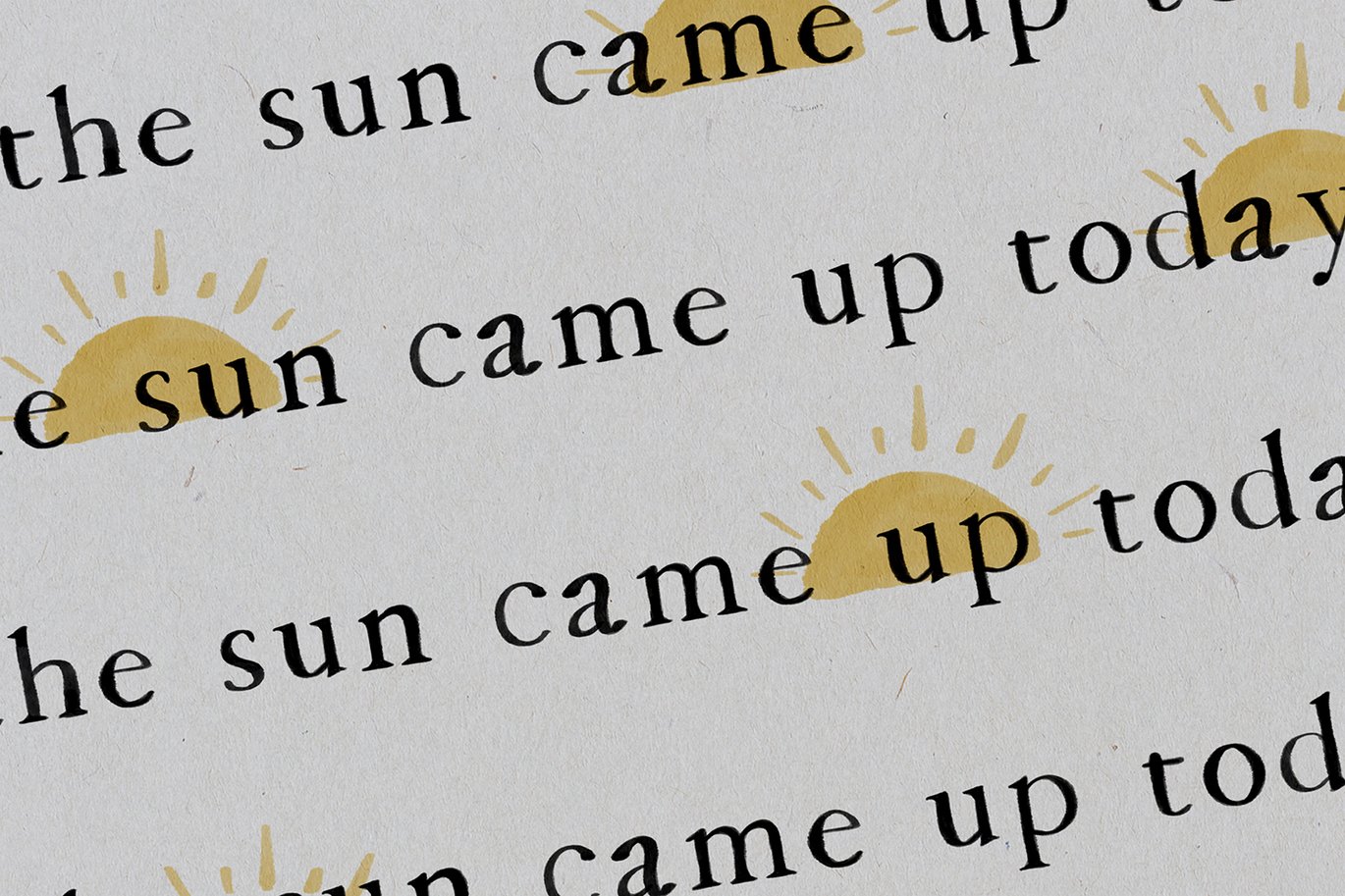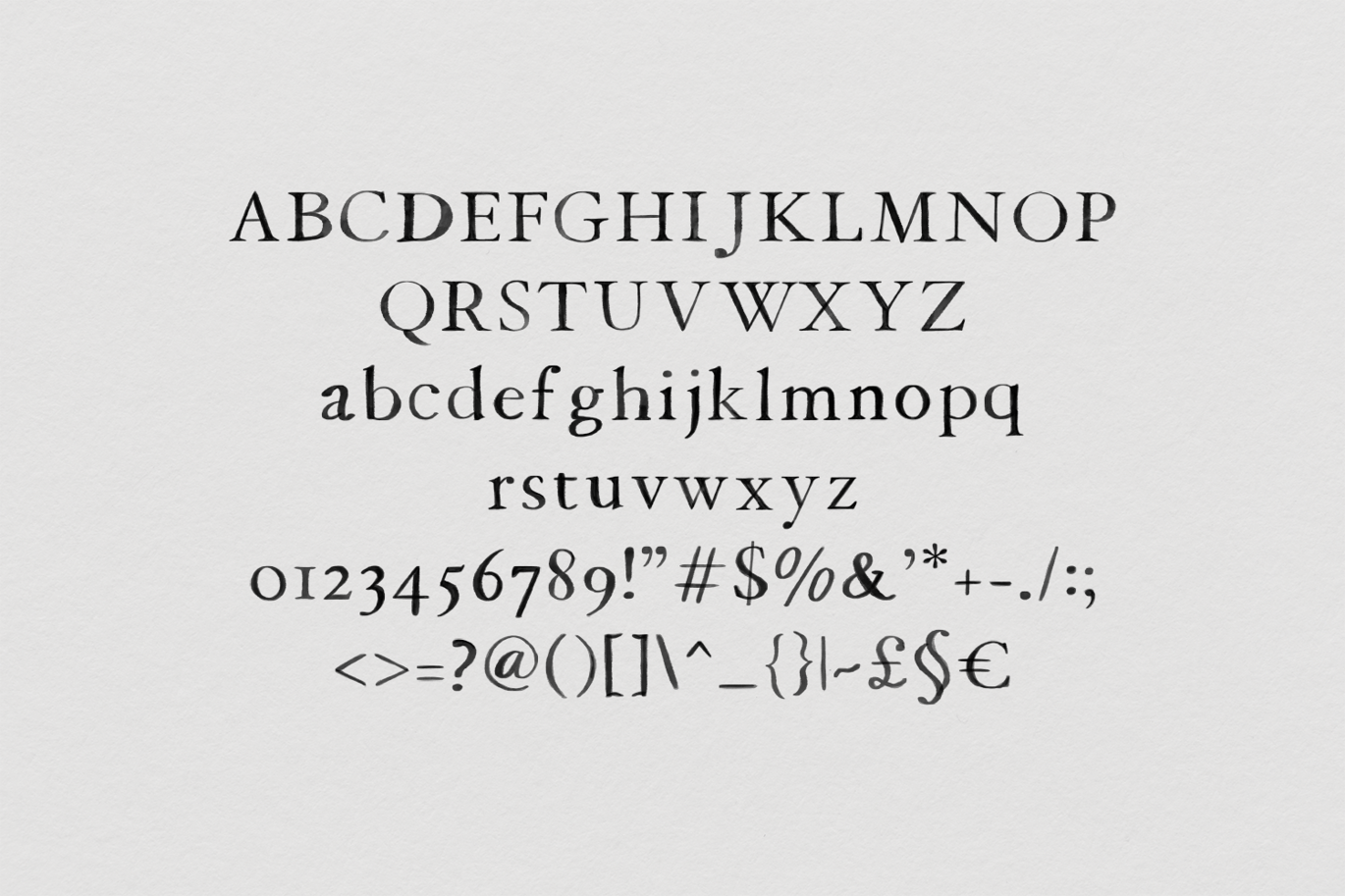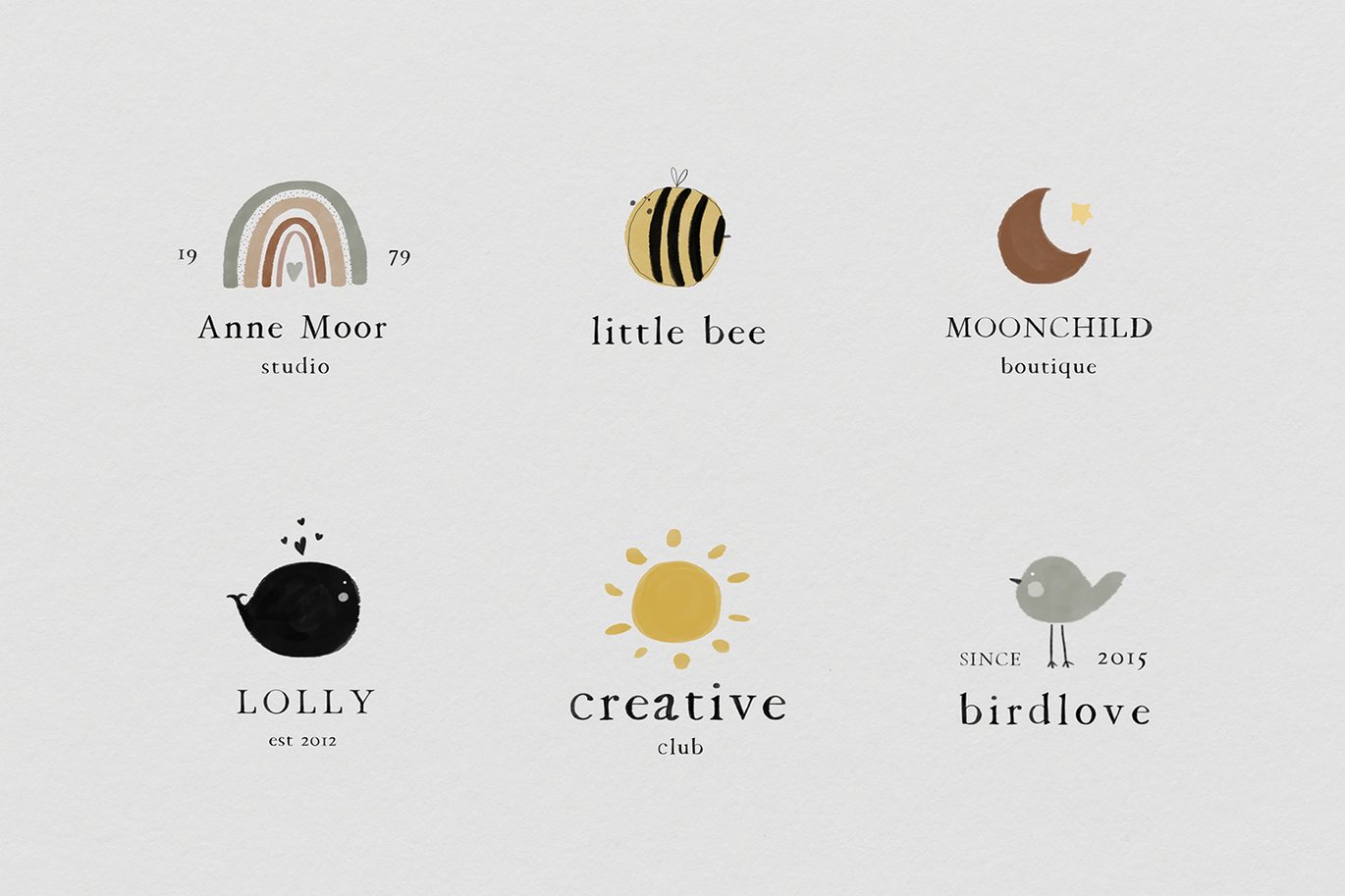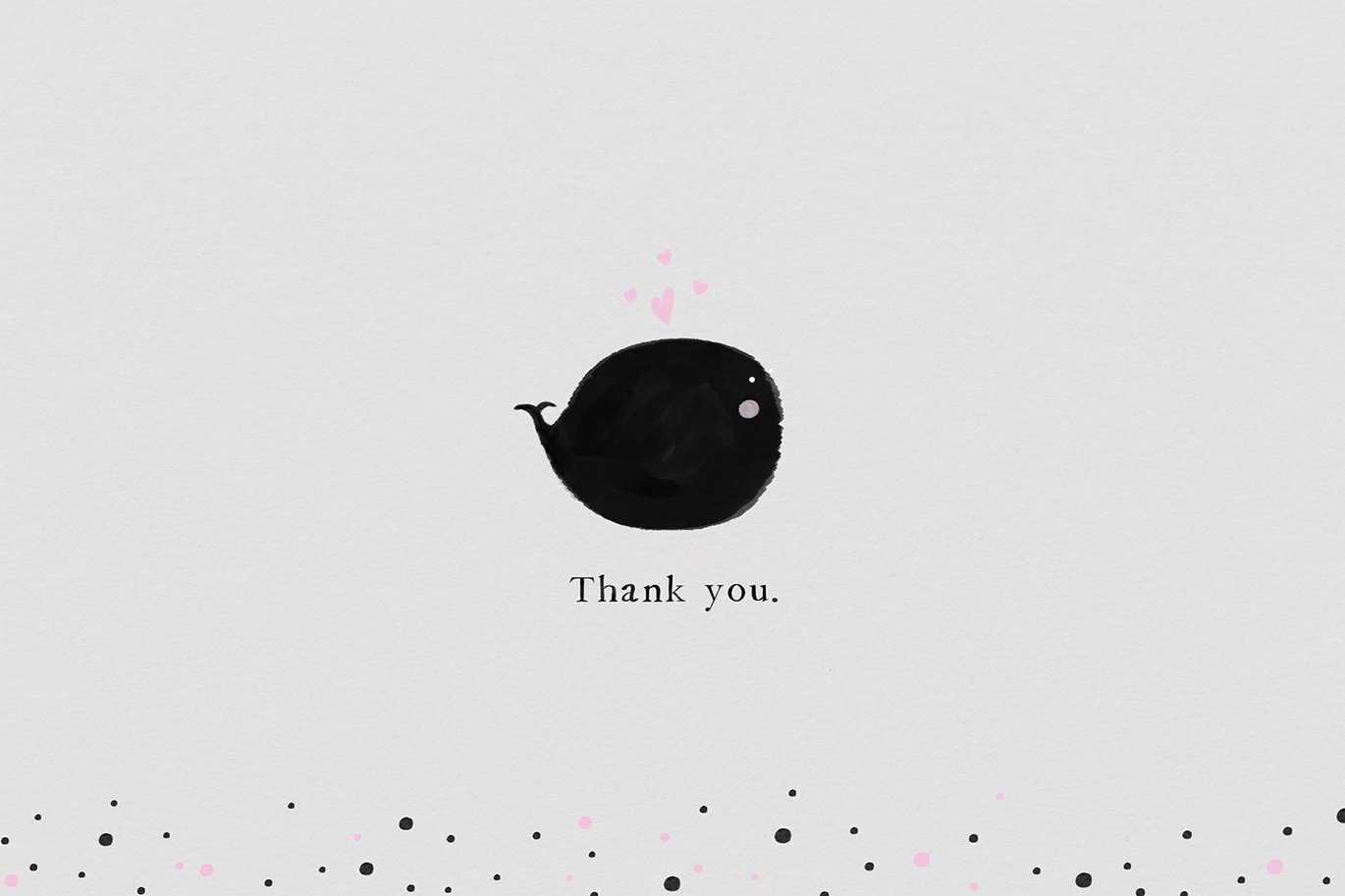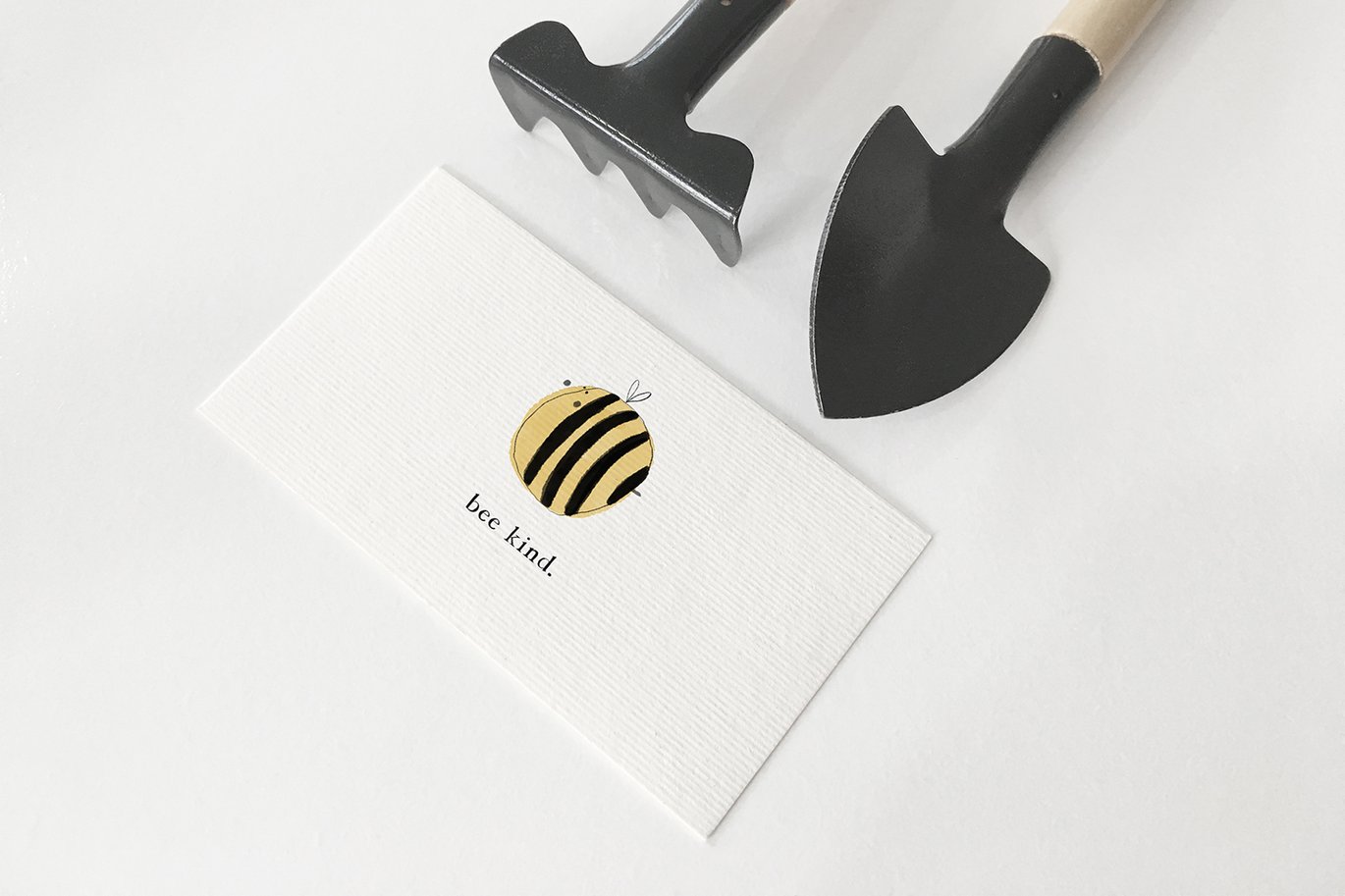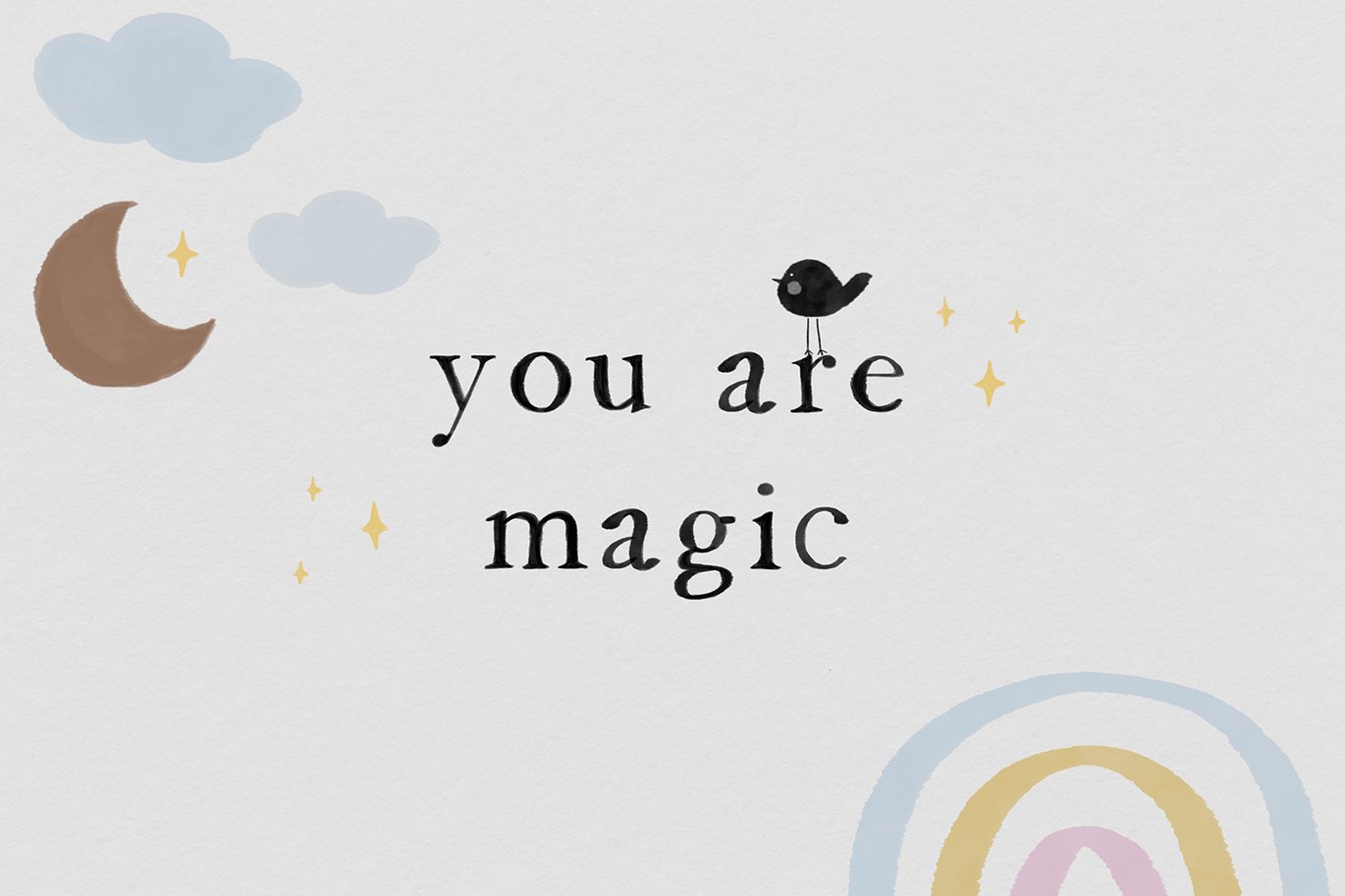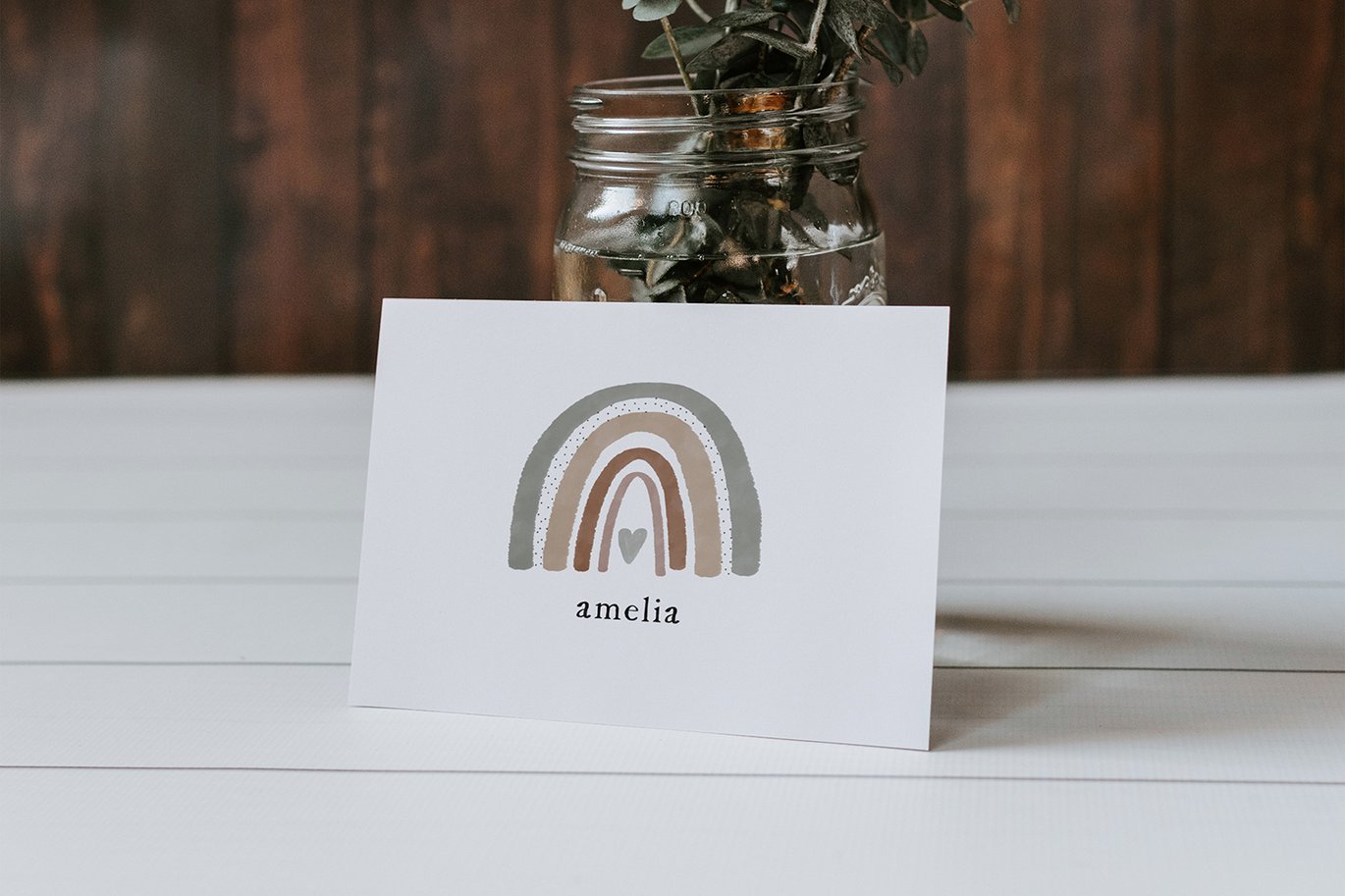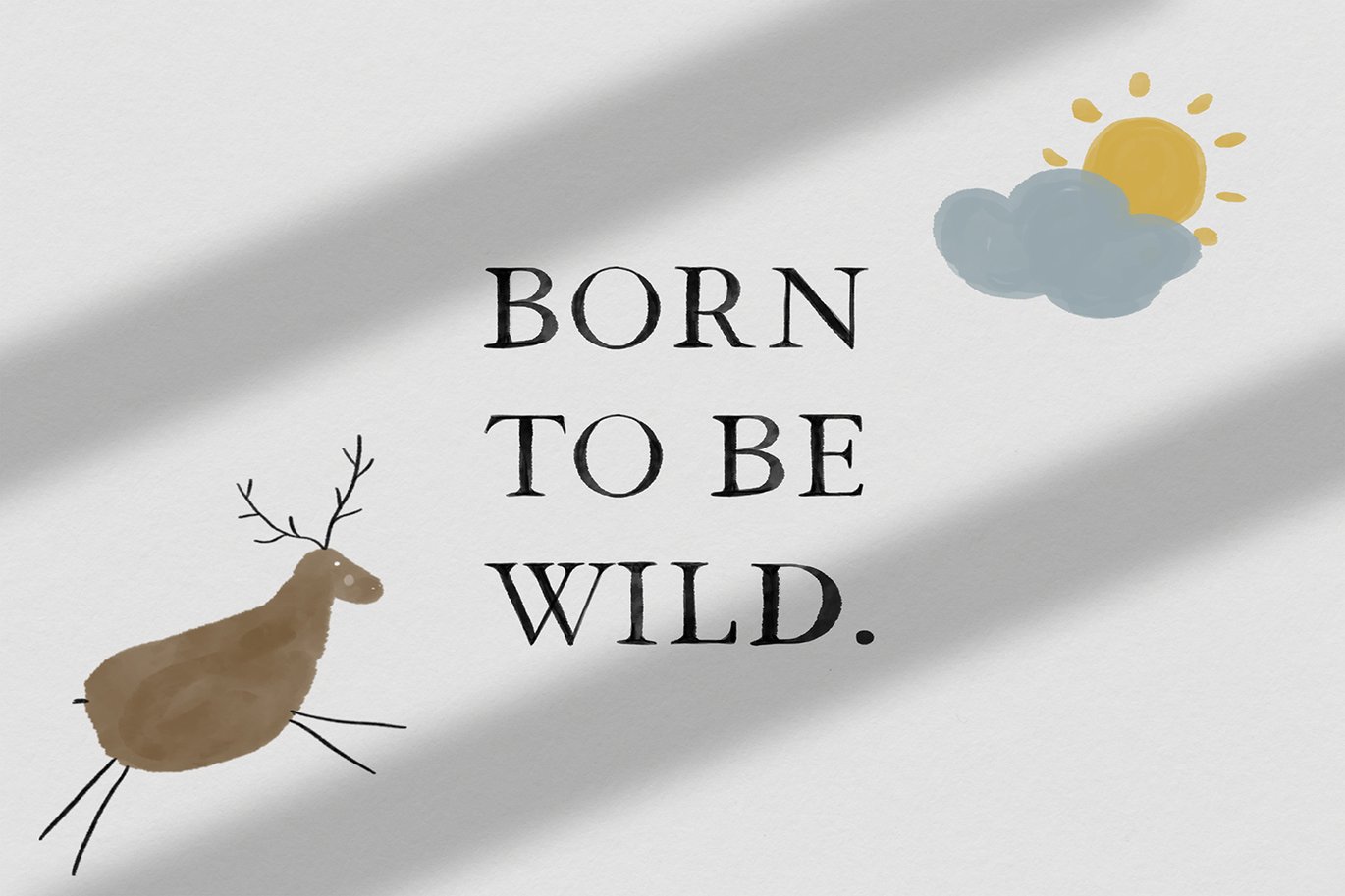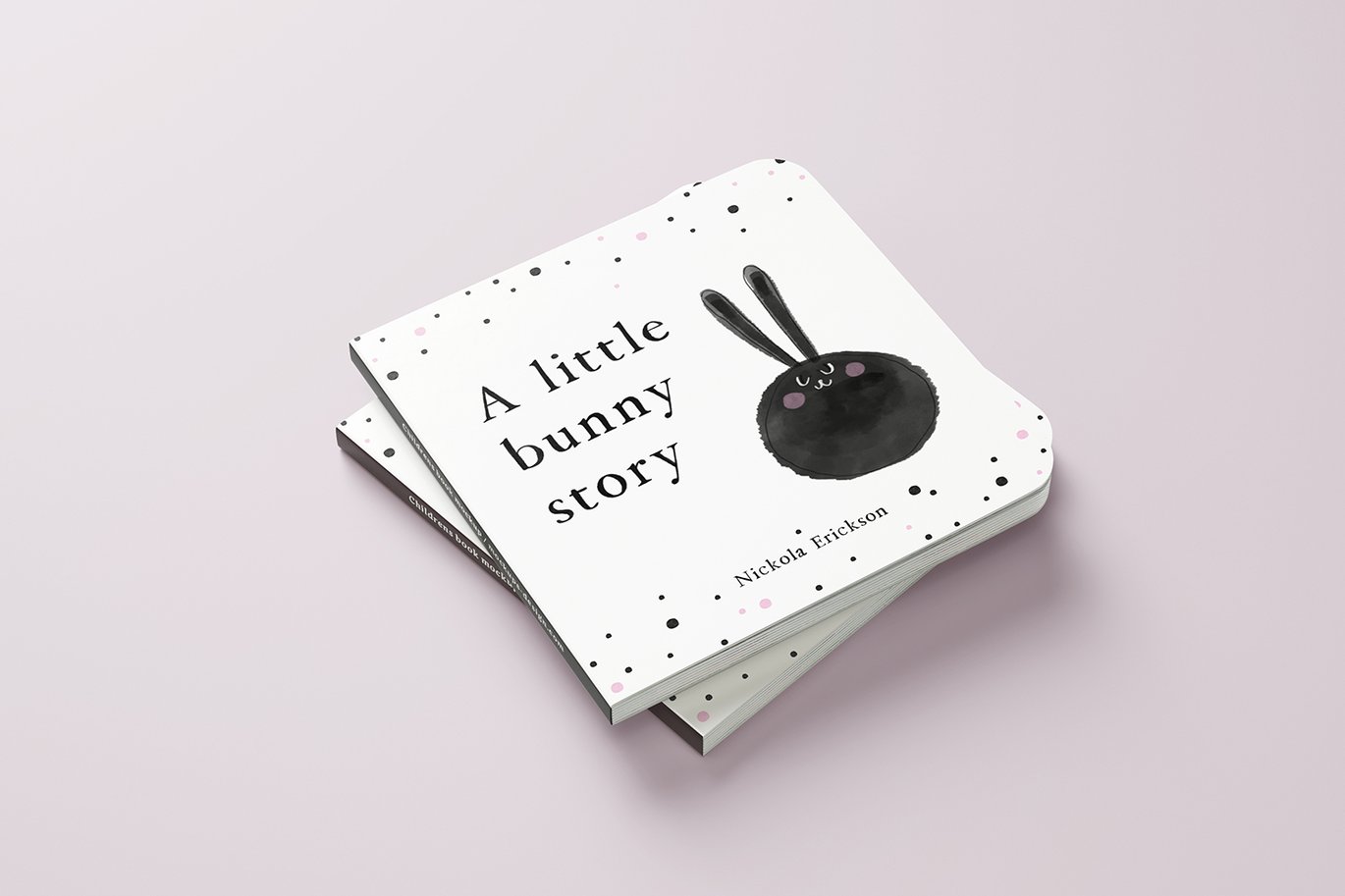
Little Bee Font
Little Bee is a new collection of display serif typeface. Perfect for logos, cards, posters and other designs. So sweet and lovely π
Little Bee SVG font that contains upper and lowercase characters, number 0-9 and a range of punctuation and symbols (OTF only);
All the letters of Little Bee are raster bitmap font – each letter has been painted a dozen of times.